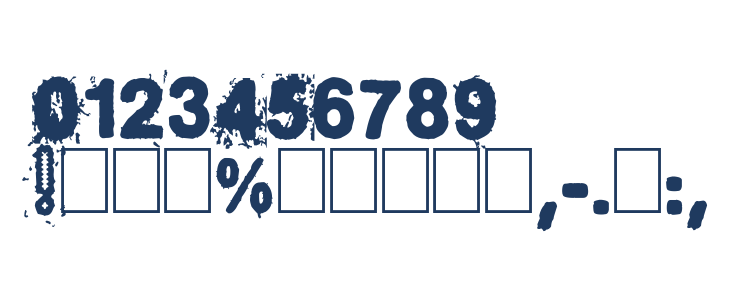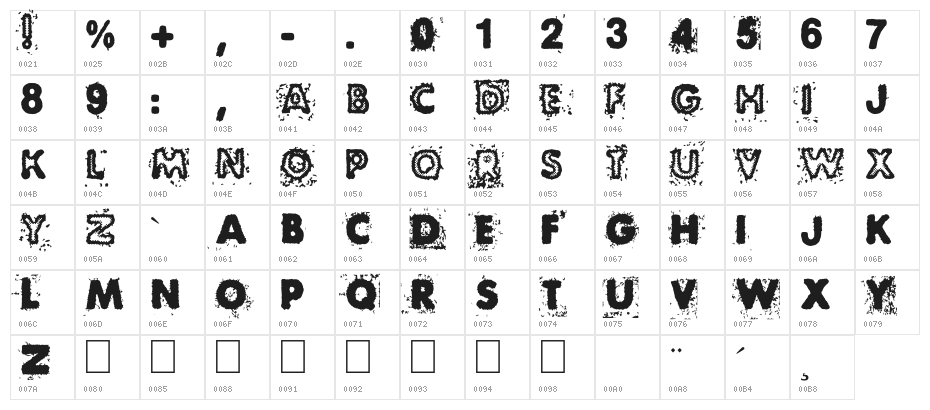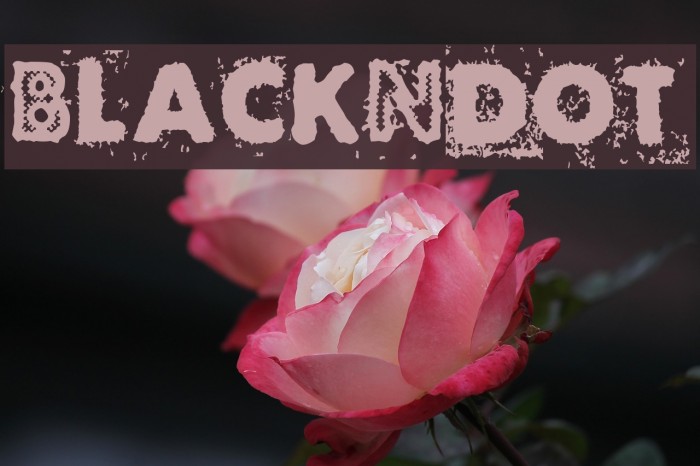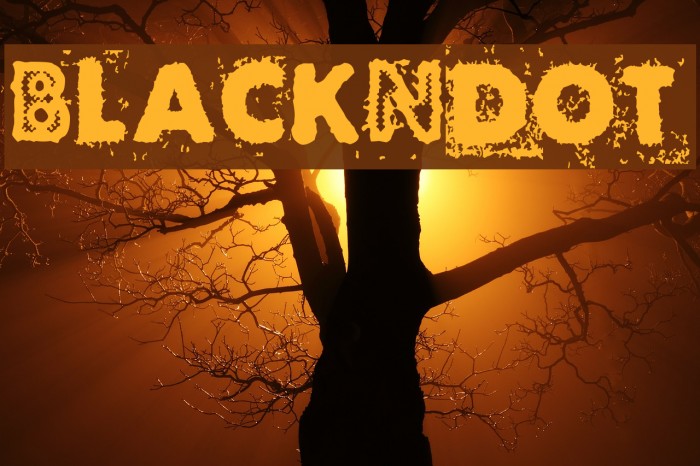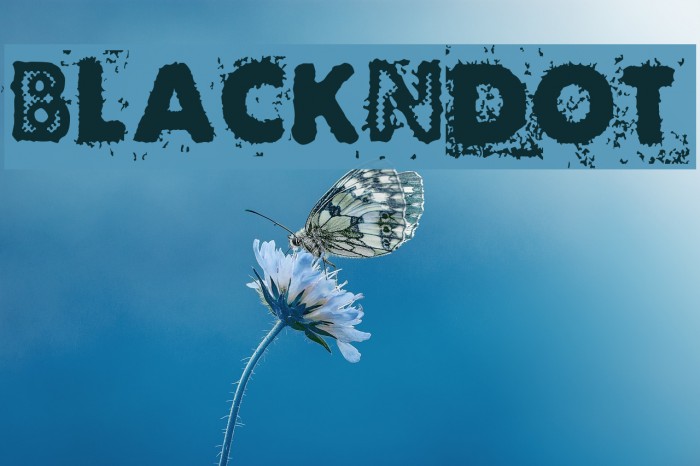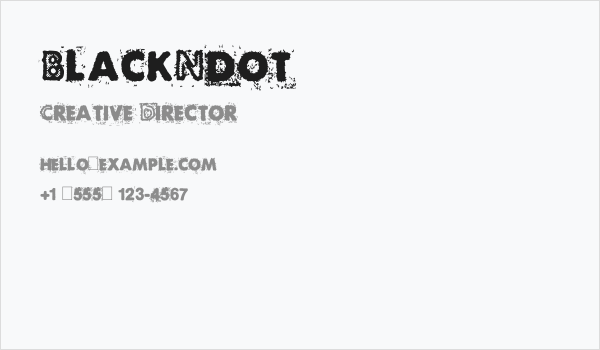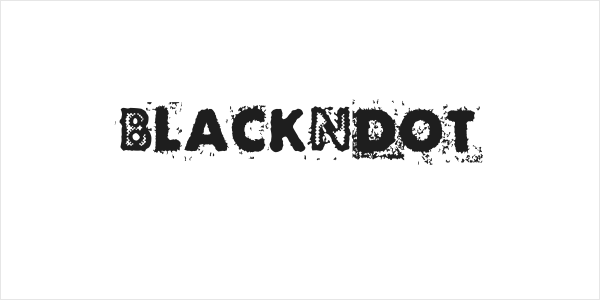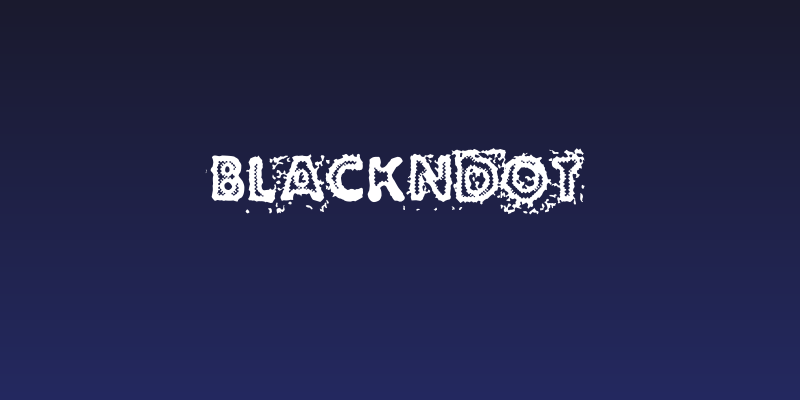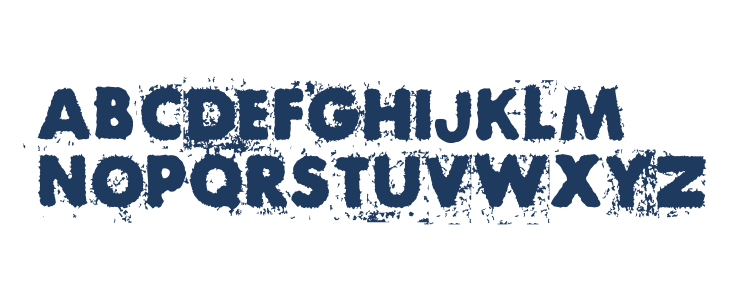
BlackNdot Font
BlackNdot Description
This font features a bold, distressed style with a grunge texture that gives it a rugged and edgy appearance. The characters are heavily textured, resembling a worn or eroded surface, which adds a sense of depth and character. The uppercase and lowercase letters maintain a consistent weight, while the numbers and special characters follow the same distressed theme. This font's unique style makes it stand out, capturing attention with its bold and artistic flair.
| Overall Style | Grunge, Edgy, Artistic |
| Use Case | Headlines, Posters, Logos |
| Proposed Projects | Ideal for music album covers, posters, urban-themed designs, and any project requiring a bold, edgy aesthetic. |